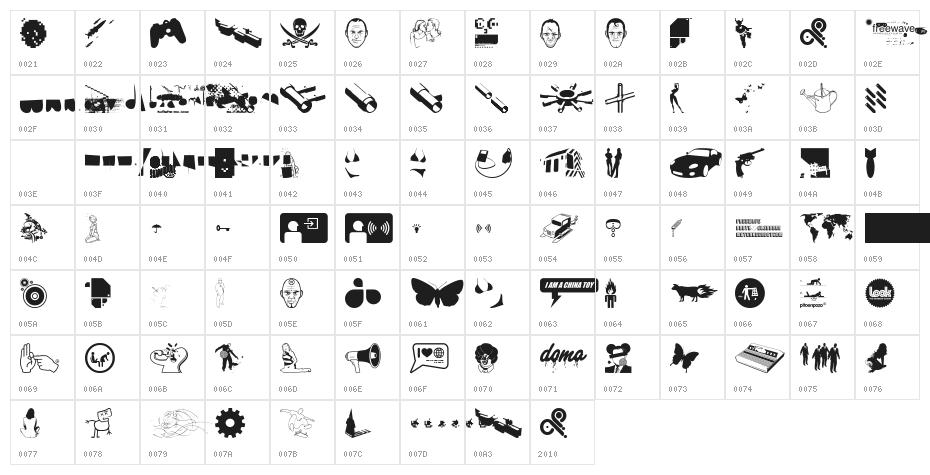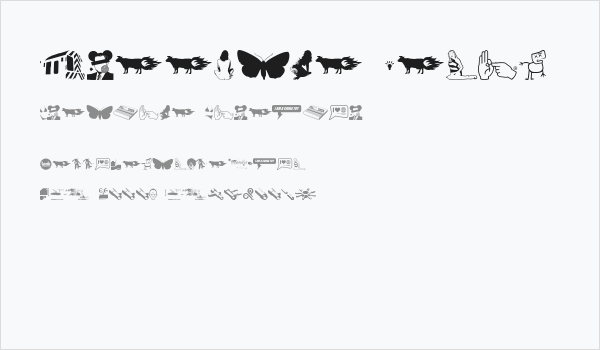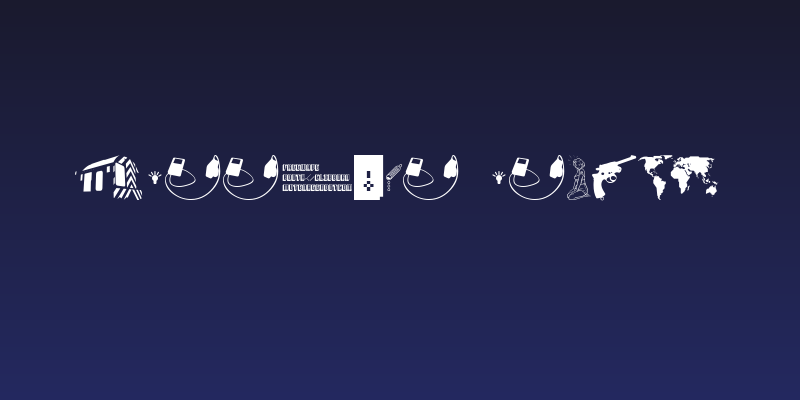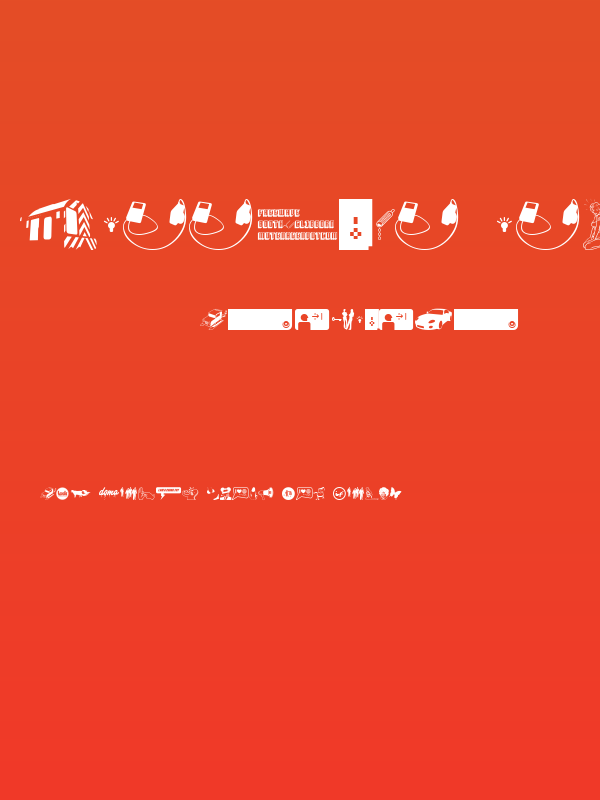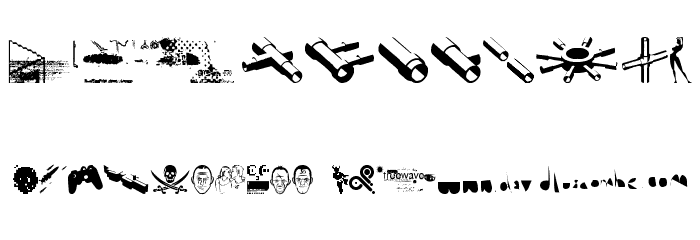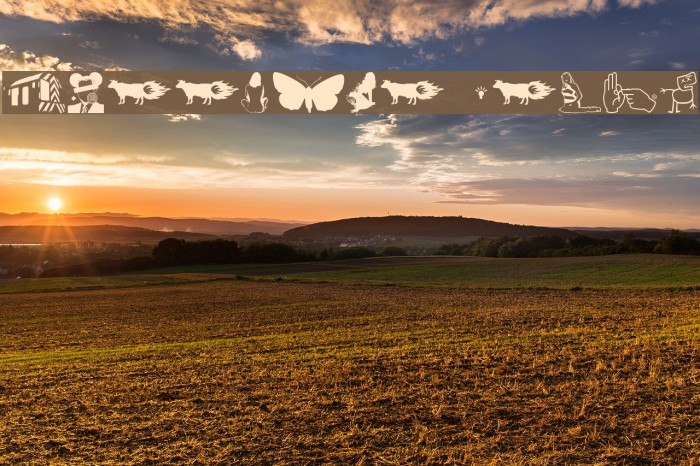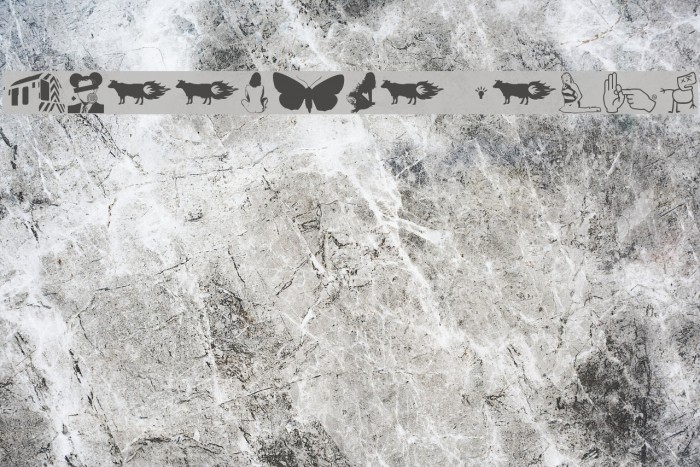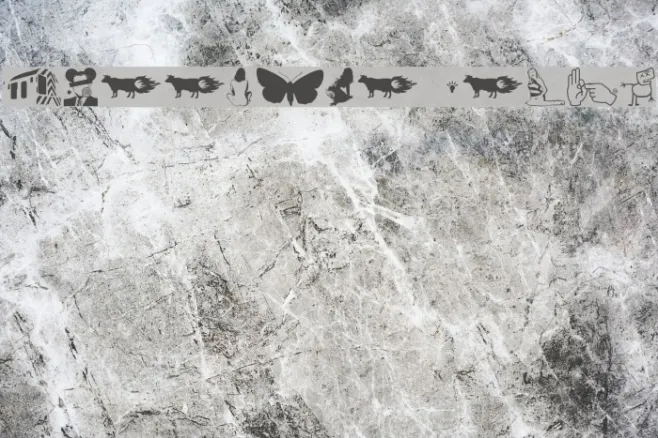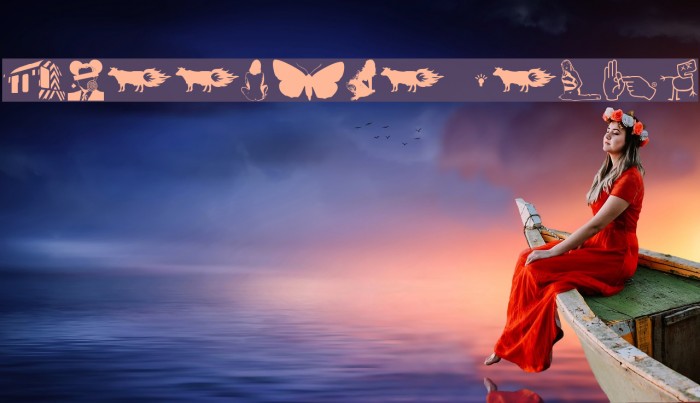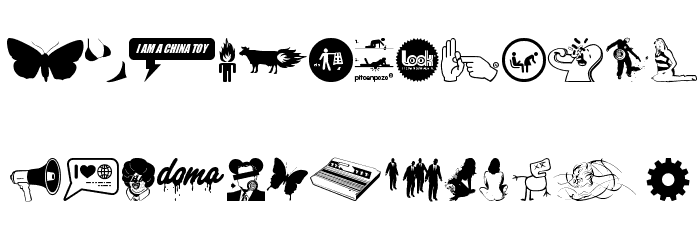
Freewave Remix Font
Freewave Remix Description
A highly decorative and eclectic dingbat font composed of various pictograms, symbols, and illustrations ranging from people, vehicles, animals, technology, and abstract shapes. Each character is represented by a unique and detailed icon rather than a traditional letterform.
| Overall Style | Decorative, Eclectic, Modern |
| Use Case | Icons, Decorative elements, Visual accents |
| Proposed Projects | Posters, flyers, album covers, web graphics, visual storytelling, infographics, and creative branding. |